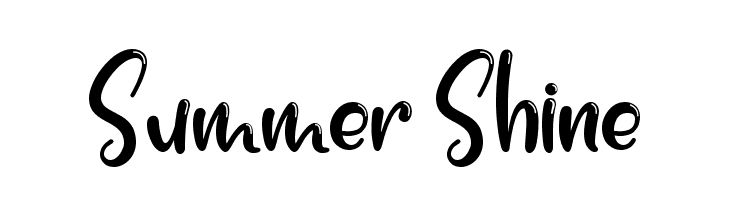
( Fonts by StringLabs )
Expressive handwritten script with dynamic, sweeping strokes.
( Fonts by Your Own Font )
Casual handwritten font with playful, rounded strokes.
( Fonts by Aveni Letter Type )
A bold, expressive handwritten font with tall, narrow forms.
( Fonts by Vunira Design )
A modern, casual handwritten script with smooth, connected strokes.
( Fonts by Vunira Design )
Playful handwritten script with smooth, connected strokes.
( Fonts by Maulana Creative )
Elegant handwritten script with connected, flowing strokes.
( Fonts by NJ Studio )
Elegant, handwritten cursive script with high contrast and connected strokes.
( Viejas Locas )
Energetic handwritten font with playful, irregular forms.
( 1SUMO2 )
Bold geometric sans-serif with rounded shapes and wide spacing.
( Fonts by Winarko )
Light, elegant handwritten script with tall, flowing forms.
( Fonts by Hatf Type )
Expressive handwritten script with a lively, informal style.
( Fonts by Valiant Project )
A casual handwritten font with rounded, playful characters.
( Fonts by Maulana Creative )
Expressive, cursive handwritten script with a signature-like appearance.
( Fonts by Letterafa Studio )
Casual handwritten script with playful loops and fluid strokes.
( Fonts by Laura )
Playful handwritten font with rounded shapes and a heart symbol.
( Fonts by gado gado )
A rounded, hand-drawn sans-serif font with a friendly and informal style.
( Fonts by Vztype Studio )
A modern, elegant handwritten script with flowing, connected strokes.
( Fonts by Vztype Studio )
A graceful, handwritten script font with flowing, connected strokes.
( Fonts by Andika )
Bold, playful handwritten font with rounded shapes.
( Fonts by Niskala Huruf )
Casual, monoline handwritten script with tall, narrow forms.
( Fonts by StringLabs )
Handwritten script with tall, narrow, and fluid strokes.
( Fonts by Graphix Line Studio )
Playful rounded sans-serif with handwritten qualities.
( Fonts by Graphix Line Studio )
Playful rounded sans-serif with shiny, bubble-like highlights.
( Fonts by Nabila )
Expressive, sketchy handwritten script with tall, angular forms.
( Fonts by Staircase Studio )
Elegant, handwritten script with connected, flowing strokes.
( Fonts by Staircase Studio )
Elegant, handwritten cursive script with connected strokes.
( Fonts by Figstype )
Elegant handwritten script with tall, narrow forms and high contrast.
( Fonts by Letterena Studios )
Elegant, cursive script with a handwritten feel and variable stroke width.
( Fonts by Steven Joss )
Expressive handwritten script with energetic, casual strokes.
( Fonts by Scratchones )
Tall, whimsical sans-serif with playful rounded forms.
( Fonts by lontong lodeh )
Bold, playful handwritten font with rounded strokes.
( Fonts by Integritype Studio )
A graceful, cursive script font with a handwritten style.
( Fonts by Kong Font )
A relaxed, handwritten script with a natural flow.
( Fonts by Perspectype Studio )
Energetic, brush-style handwritten script with playful, fluid strokes.
( Fonts by creatype designer )
A rounded, playful sans-serif with a friendly, informal style.